Some typefaces stand above the rest — fonts that shaped global branding, influenced design culture, and became long-lasting standards across industries. These five world-renowned fonts are considered essential tools for designers worldwide.
Alongside them, we highlight five recommended Lettertype Studio (LTS) fonts that carry strong design value, professional refinement, and modern usability for today’s creative needs — not as replacements, but as high-quality options worth adding to any designer’s toolbox.
The 5 Best Fonts in the World
1. Helvetica — Linotype
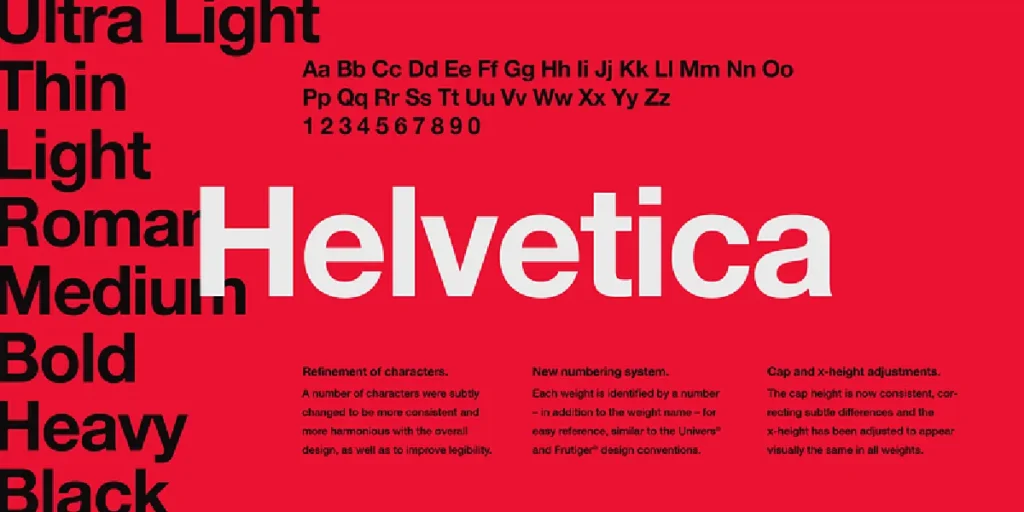
A timeless sans-serif known for its balanced neutrality and clarity. Helvetica remains the backbone of corporate branding, signage, and clean modern identity systems.
2. Futura — Bauer Type Foundry
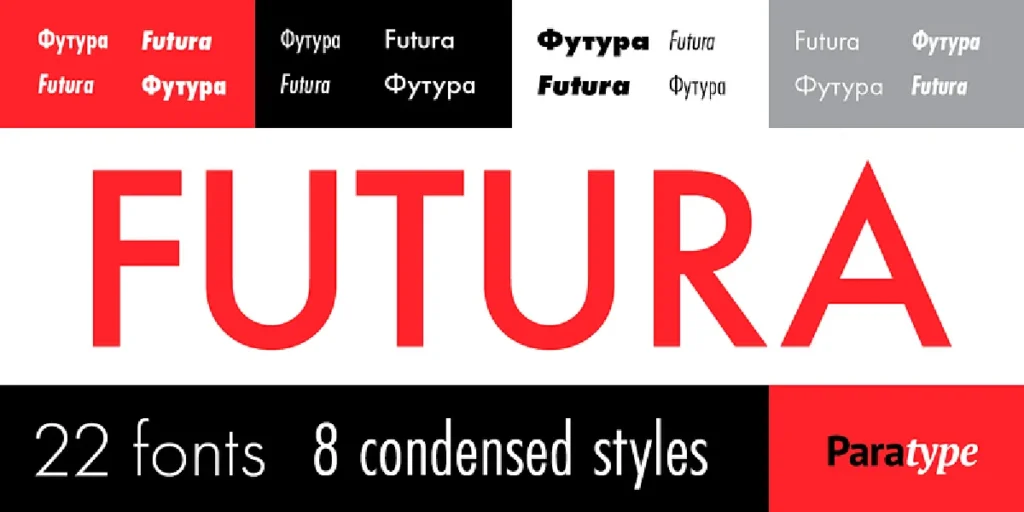
The geometric icon of modernism. With circular shapes and sharp precision, Futura is widely used in fashion, editorial design, and minimalist branding.
3. Garamond — Stempel / Adobe
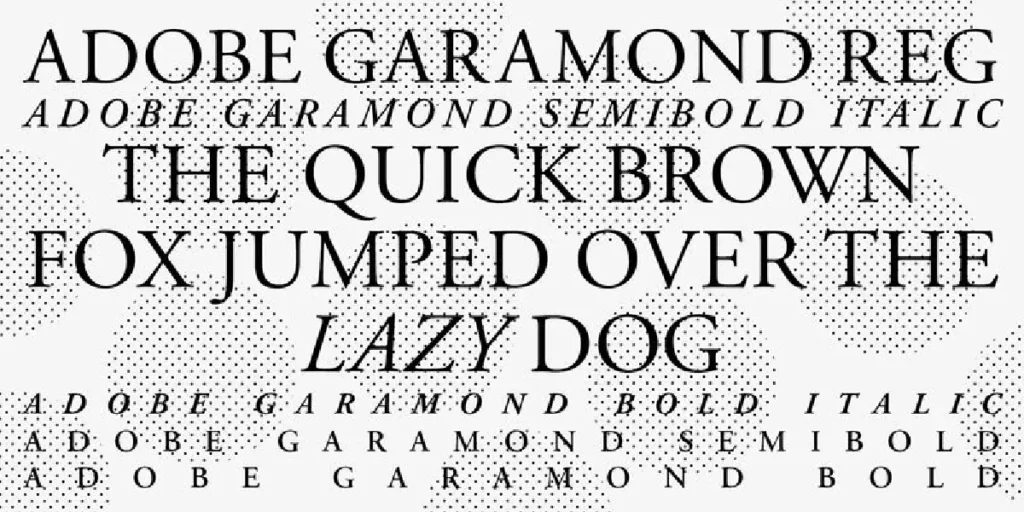
An elegant old-style serif favored for books, luxury brands, and refined editorial layouts. Its warmth and readability make it a long-standing classic.
4. Gotham — Hoefler & Co.
A confident, approachable grotesk used in political branding, corporate communication, and contemporary design systems.
5. Avenir — Linotype
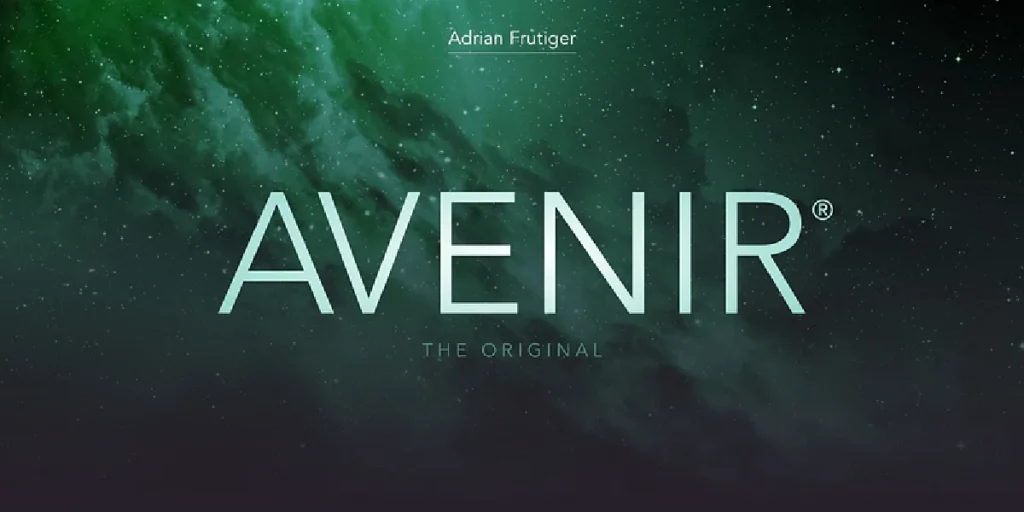
A modern, sophisticated blend of geometric and humanist forms. Avenir is popular for apps, clean branding, and modern interfaces.
5 Lettertype Studio Fonts Every Designer Should Consider
Professional, modern, and versatile fonts that stand strong alongside today’s global classics.
1. Somerun
A clean, modern sans-serif with smooth curves and well-balanced proportions.
Why it stands out:
Somerun delivers a friendly yet professional tone, making it ideal for branding, editorial design, product packaging, and user interfaces. Its clarity and polished structure give it broad versatility across industries.
2. Lenia Sans
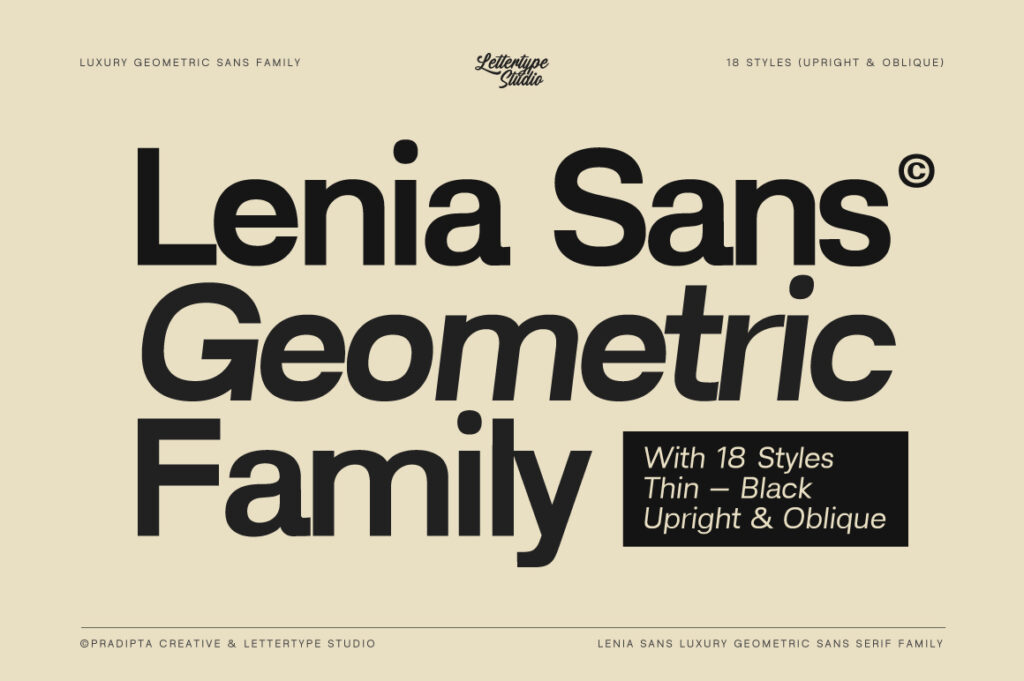
A clean geometric sans crafted for modern branding and digital environments.
Why it stands out:
Its precise geometry and contemporary shapes work perfectly for tech brands, minimalist layouts, and high-end identity systems.
3. Cirvia
A refined serif with elegant contrast and expressive modern details.
Why it stands out:
Perfect for luxury branding, editorial design, beauty products, and premium packaging seeking a sophisticated serif voice.
4. Naru Sans
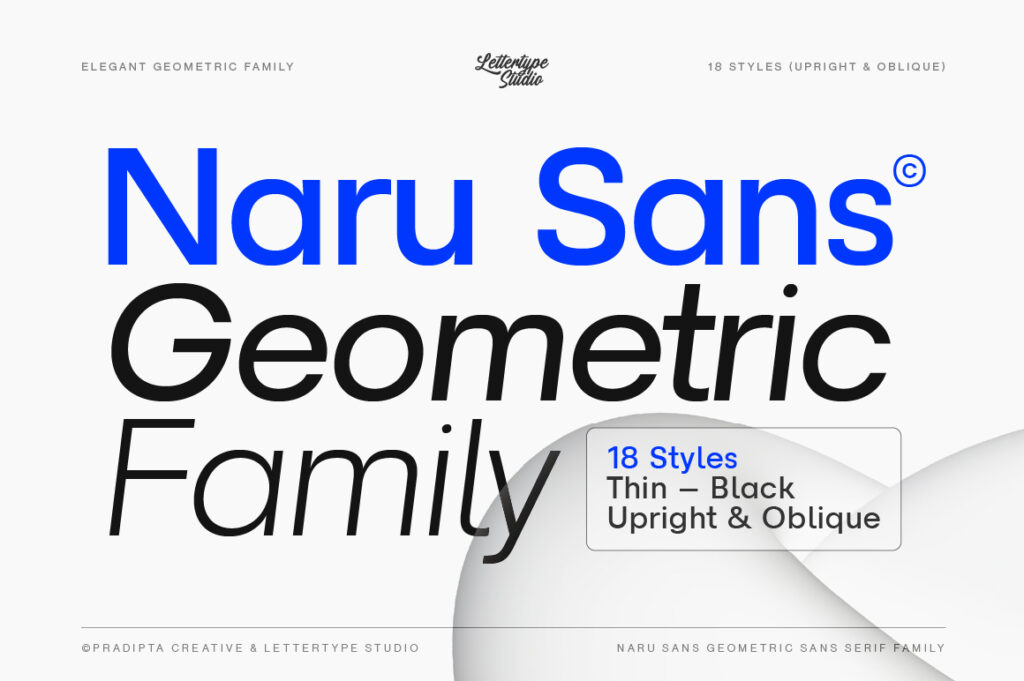
A powerful geometric sans family with 18 versatile styles.
Why it stands out:
Its broad weight range and polished construction make it reliable for signage, corporate communication, apps, and multilingual branding.
5. Prolinea
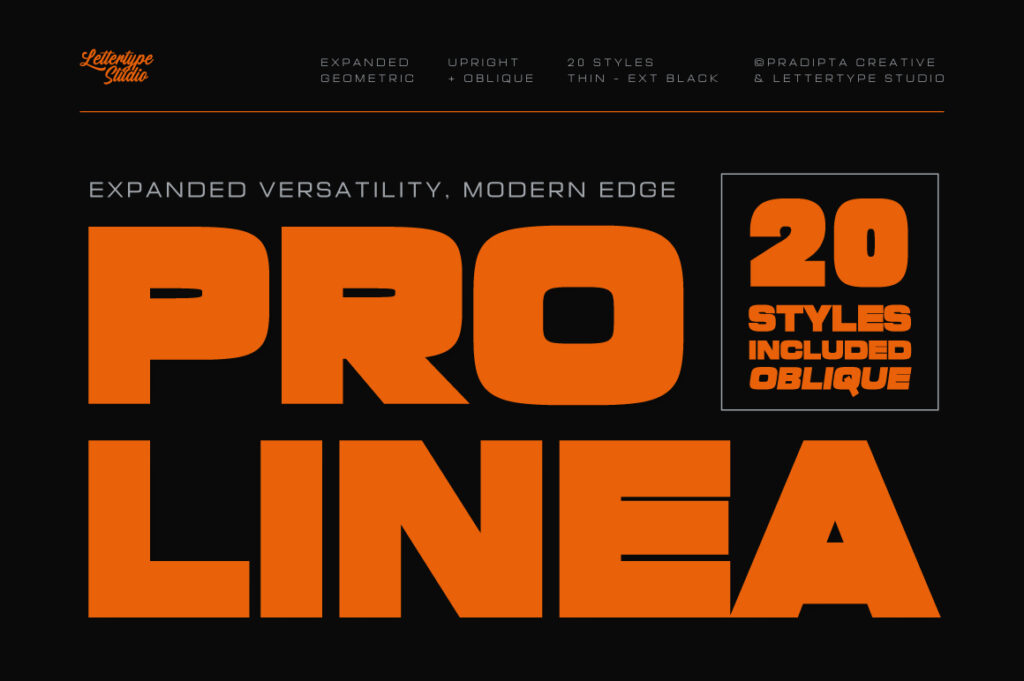
A minimalist sans with a sleek, modern character.
Why it stands out:
Prolinea excels in portfolios, digital interfaces, and modern branding that requires a clean, precise typographic voice.
Conclusion
The world’s most iconic typefaces continue to shape design standards across decades. Alongside them, the Lettertype Studio catalog provides fresh, modern, and highly functional options that fit perfectly into today’s branding, editorial, and digital design needs.
Whether you’re building a brand identity or crafting a modern interface, these five LTS recommendations offer designers premium tools with strong professional value.